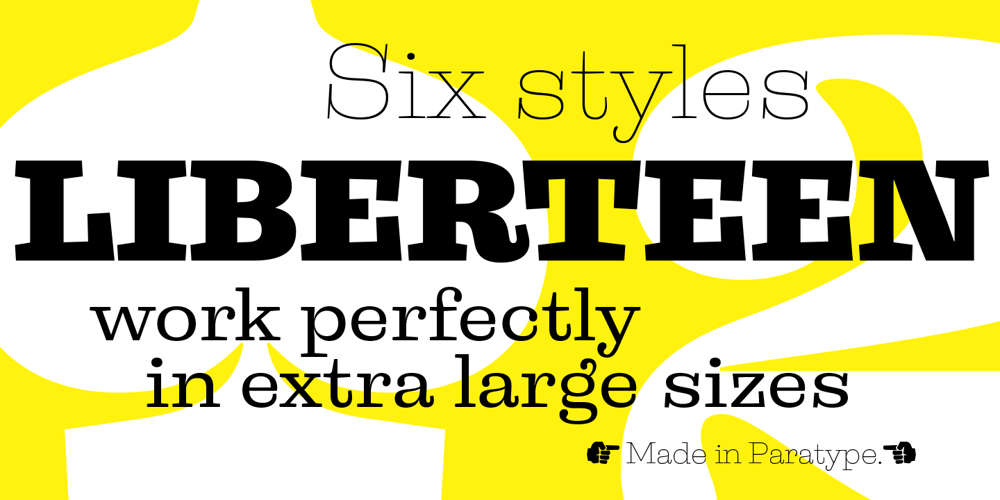
Liberteen
Liberteen font
Liberteen Font Family was designed by Alexander Lubovenko and published by ParaType. Liberteen contains 6 styles and family package options. Liberteen is a display typeface combining contemporary sharpness of lettershapes and post-modern irony in details with historical roots. The typeface is based on slab-serif faces of the 19th century including famous Clarendon. Liberteen is not a revival but rather a free interpretation of traditional design. Its lightest and darkest styles work perfectly in extra large sizes and Regular is suitable for a short text setting. Liberteen is a proper typeface for putting together allusions to the 19th century type revolution and a contemporary layout. The typeface was designed by Alexander Lubovenko and released by ParaType in 2015.